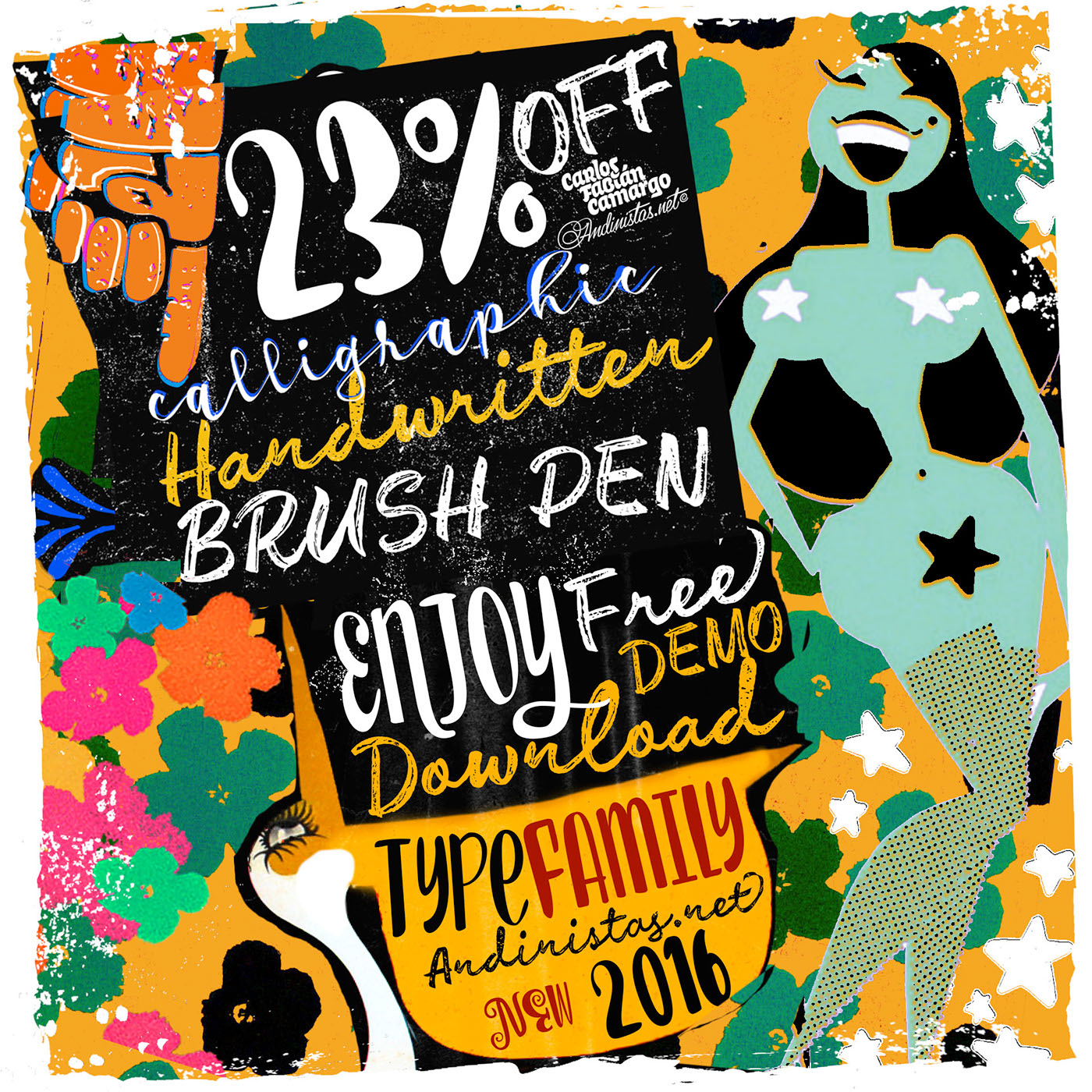
Enjoy Typeface Free Demo
Enjoy Typeface free demo is the part of a font family by Carlos Fabian Camargo G. Its 5 fonts work in groups or independent. When complement illustrations or spontaneous projects requiring organic fonts, with Enjoy you will find expressive attributes reflected in uppercase, lowercase, and numbers written with brush and fluid ink. Due to its maximum and coordinated cursive logic, captivates the interest in graphic design or advertising for cafeterias, sales of plants, bakeries, etc.